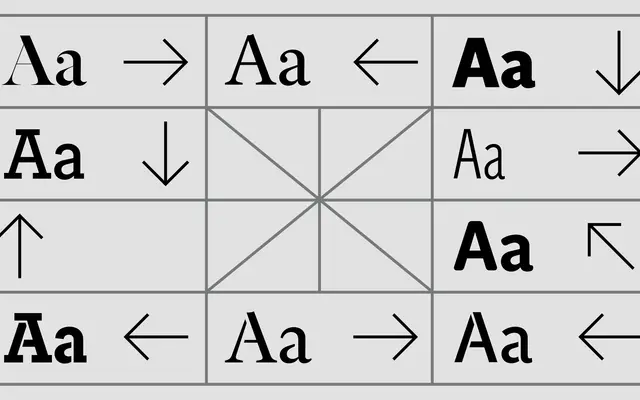
Independent Text
A2-Type · 2013
Independent Text specimen from A2-Type
A text-optimised serif cut from a bespoke typeface family commissioned for The Independent newspaper in 2013, awarded a D&AD Yellow Pencil and the Tokyo TDC Typeface Design prize.
Drawn for the daily print and digital editions of The Independent, the Text cut shares proportions and underlying structure with its siblings across the wider Independent family, which spans headline, sans, condensed, slab and stencil variants. Five weights run from Light to Black, each with a matching italic, giving editors a full range for body text, standfirsts and pull quotes. The family received a D&AD Yellow Pencil in 2014 and the Typeface Design prize at the Tokyo Type Directors Club awards in 2015.
Designed specifically for newspaper body text in both print and digital, with proportions and structure calibrated for demanding reading conditions at small sizes. The Text cut sits within a broader family that includes Headline, Sans, Slab and Condensed variants.